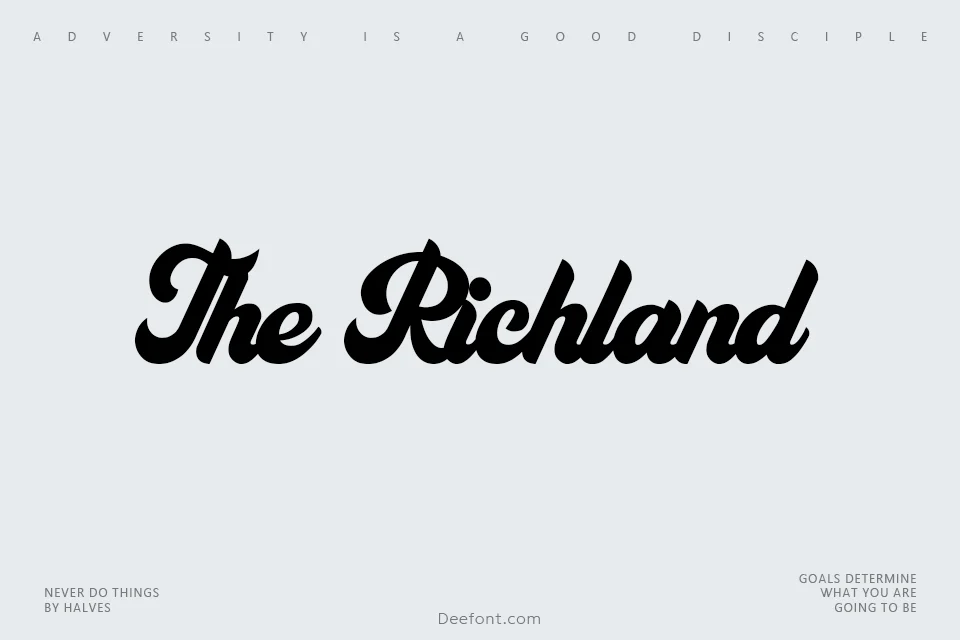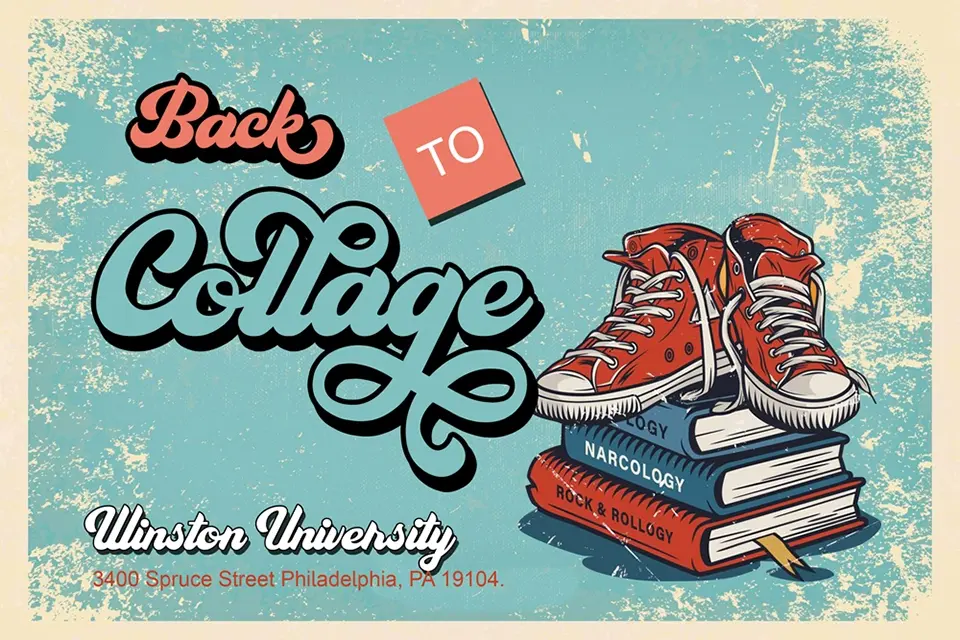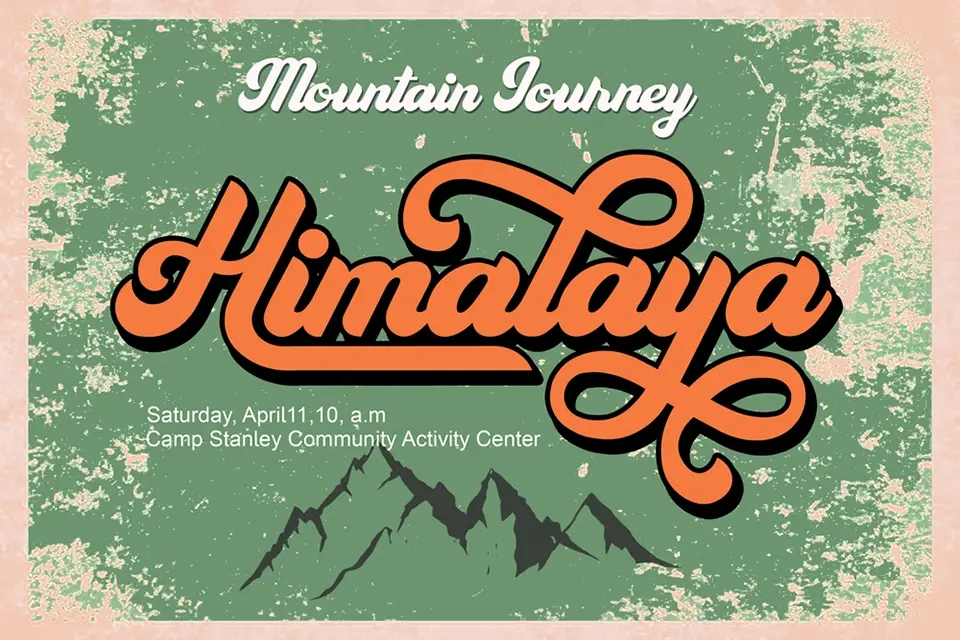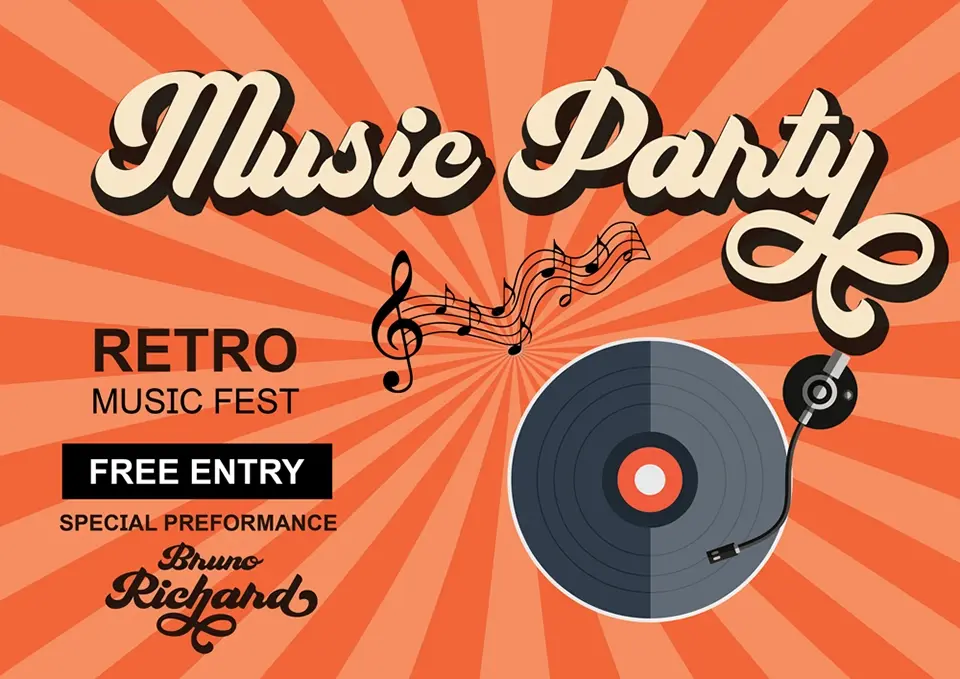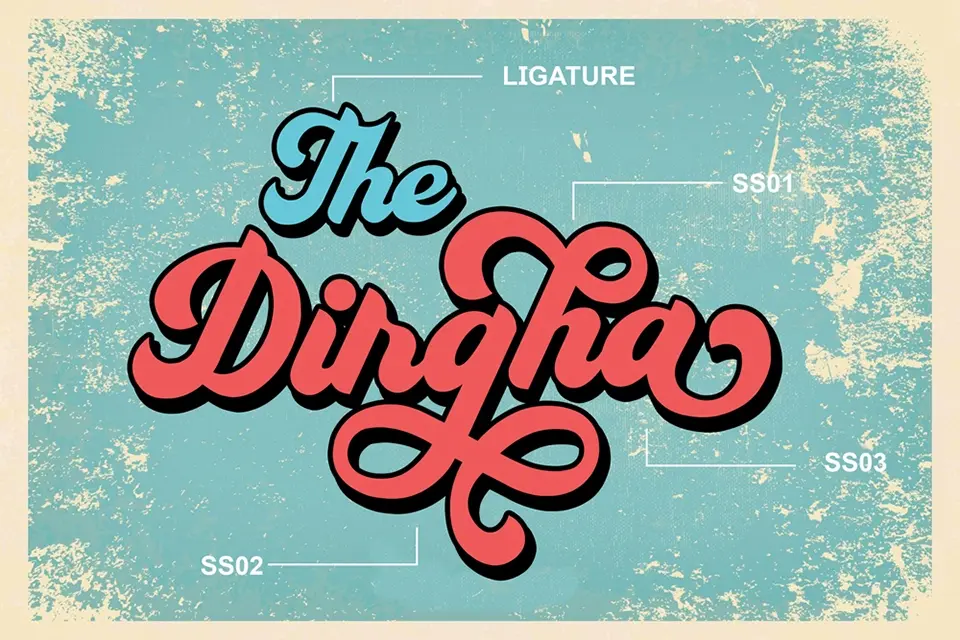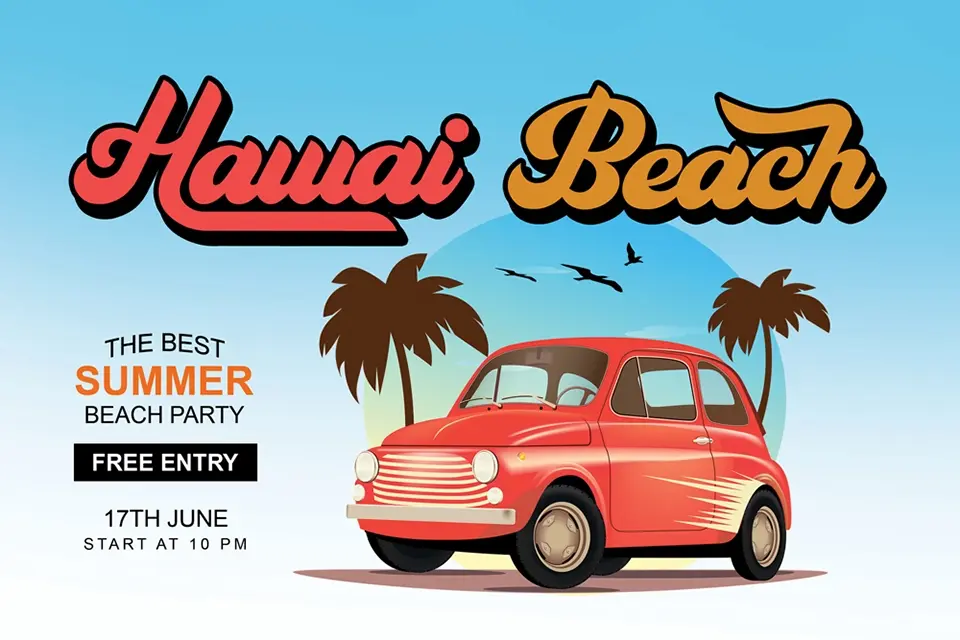
The Richland Font
The Richland is a bold retro script font crafted by NeutroneLabs that combines vintage charm with modern design sensibilities. This beautiful typeface features swirl curvy elements and nostalgic styling, making it perfect for creating eye-catching headlines, logos, poster designs, and modern packaging projects. The font’s PUA encoding enables easy access to all glyphs and swashes, offering versatile styling options for both display and decorative typography needs.